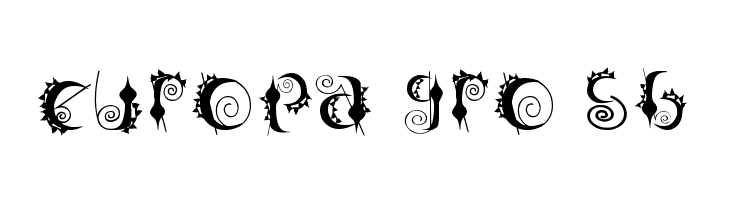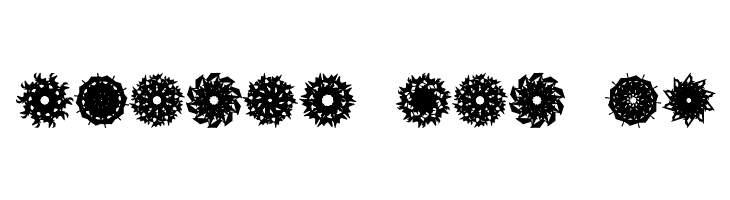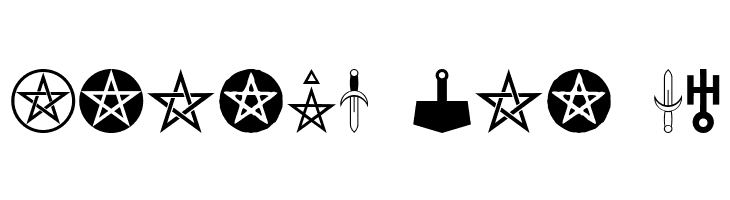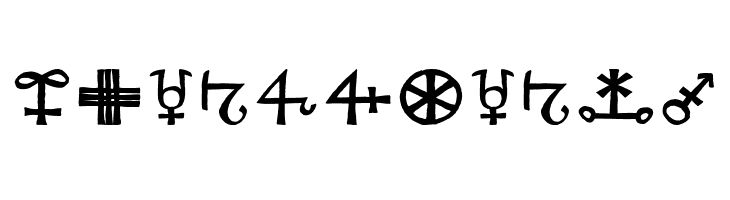
( Fonts by Gabrielle Welsh )
A decorative font with thorny embellishments and mystical swirls, ideal for occult-themed designs.
( Frankenfonts - www.thebainbridges.net/fonts/ )
A pictogram font with occult and mystical symbols.
A decorative, gothic font with occult and demonic motifs.
( Fonts by www.feorag.com )
A bold, decorative symbol font with esoteric and mystical icons.
Ornate, symbolic font reminiscent of ancient or mystical iconography.
( Anthony Robinson - www.redbubble.com/people/anfa/portfolio )
A thorny, gothic-style font with intricate, jagged edges.
A mystical, rune-like font with bold, intricate characters and an italic slant.
( Digital Type Foundry - www.digitaltypefoundry.com/ )
A symbolic, decorative font with alchemical and esoteric influences.
A bold decorative font of pagan and esoteric symbols.
Decorative font with astrological and mystical illustrations.
( Fonts by PutraCetol Studio )
A bold, gothic display font with devilish horns and tails.